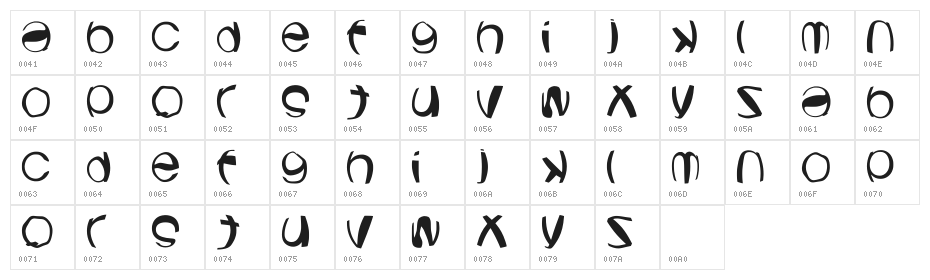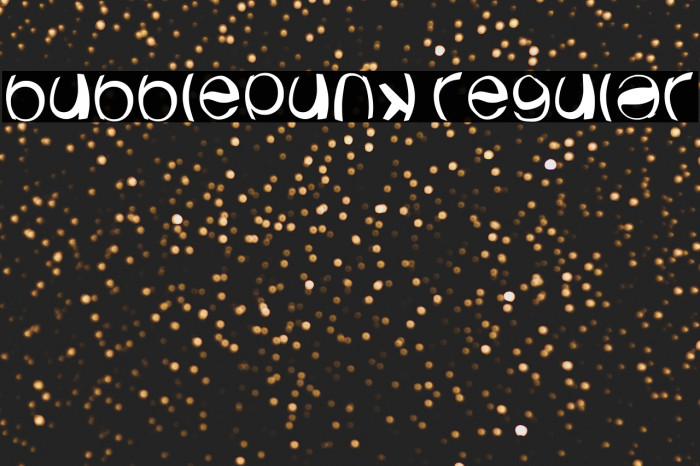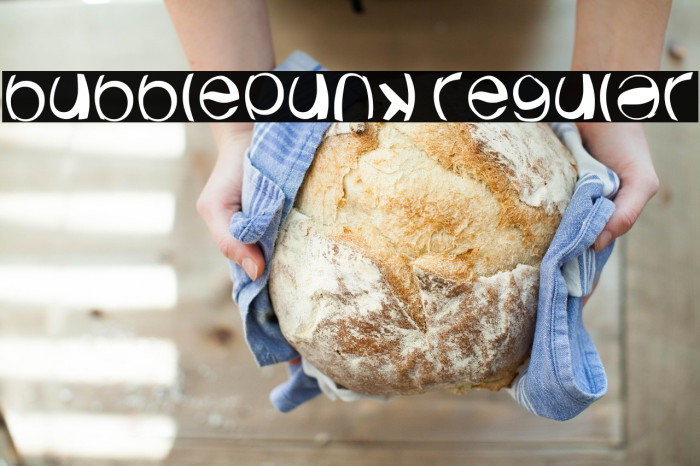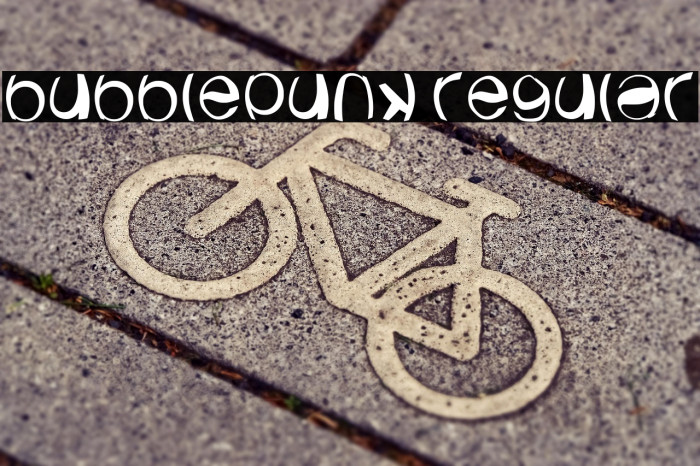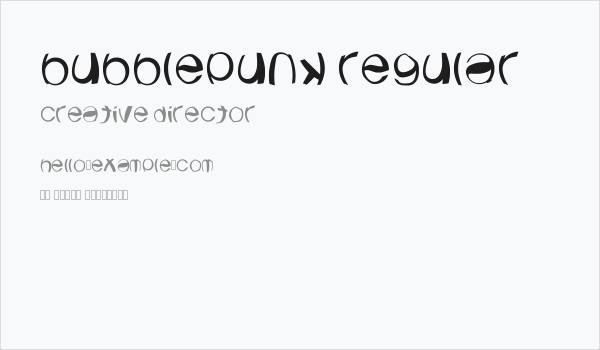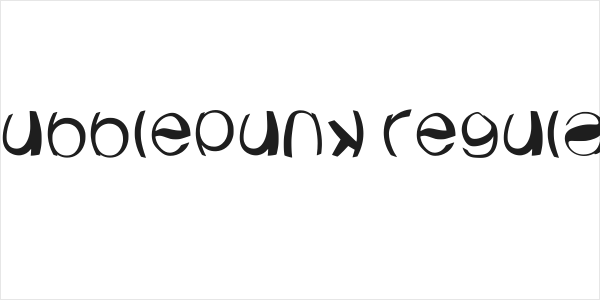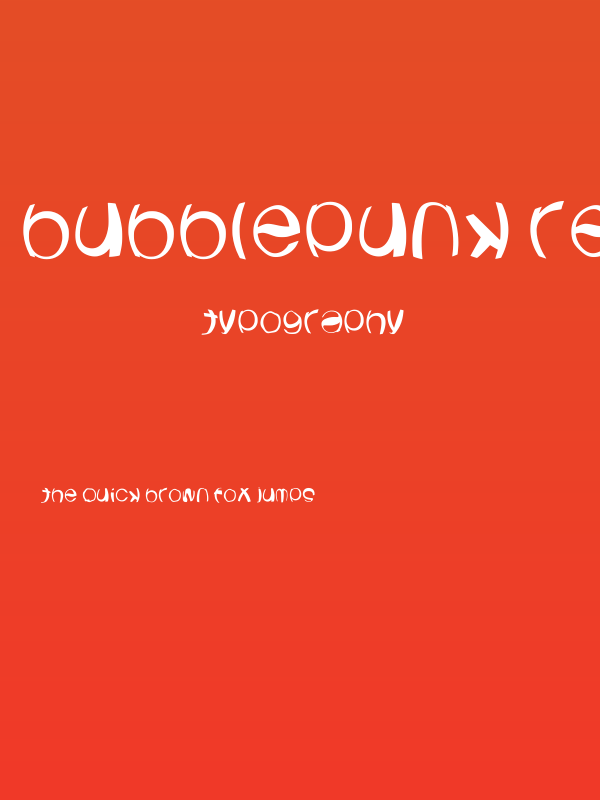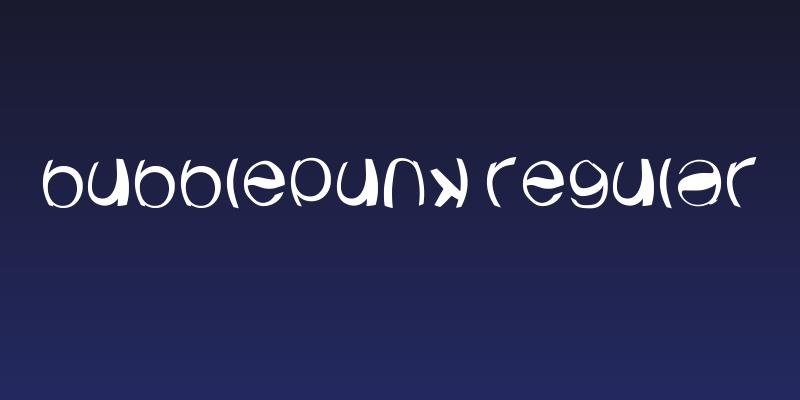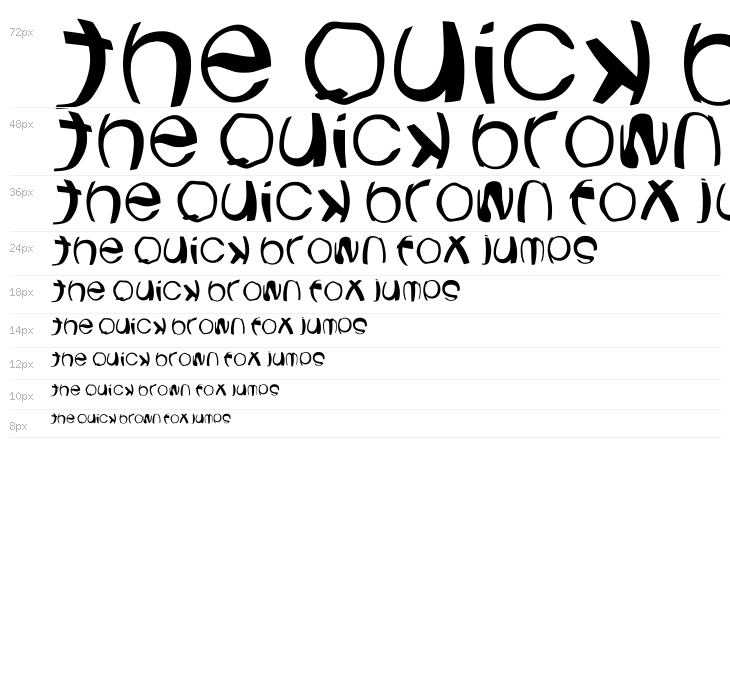
Bubblepunk Regular Font
Bubblepunk Regular Description
This font features a playful and whimsical design, characterized by its rounded and bubbly letterforms. The strokes are thick and bold, giving it a strong presence while maintaining a friendly and approachable appearance. The unique style incorporates slight irregularities in the shapes, adding a dynamic and lively feel. The characters are well-spaced, ensuring readability despite their unconventional forms. This font is ideal for projects that require a fun and informal touch, such as children's books, playful branding, or creative posters.
| Overall Style | Playful, Whimsical |
| Proposed Projects | Children's books, playful branding, creative posters, party invitations. |